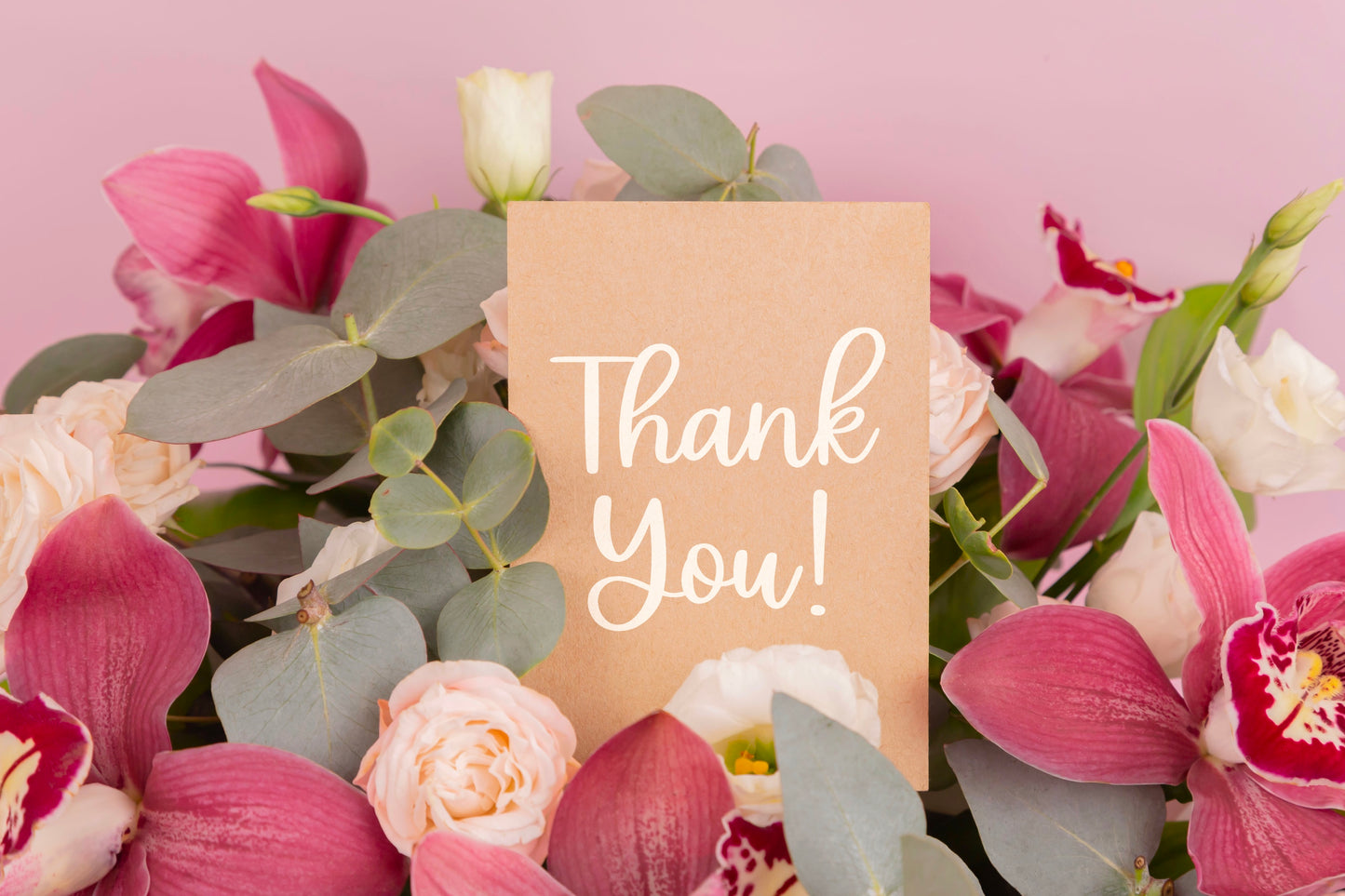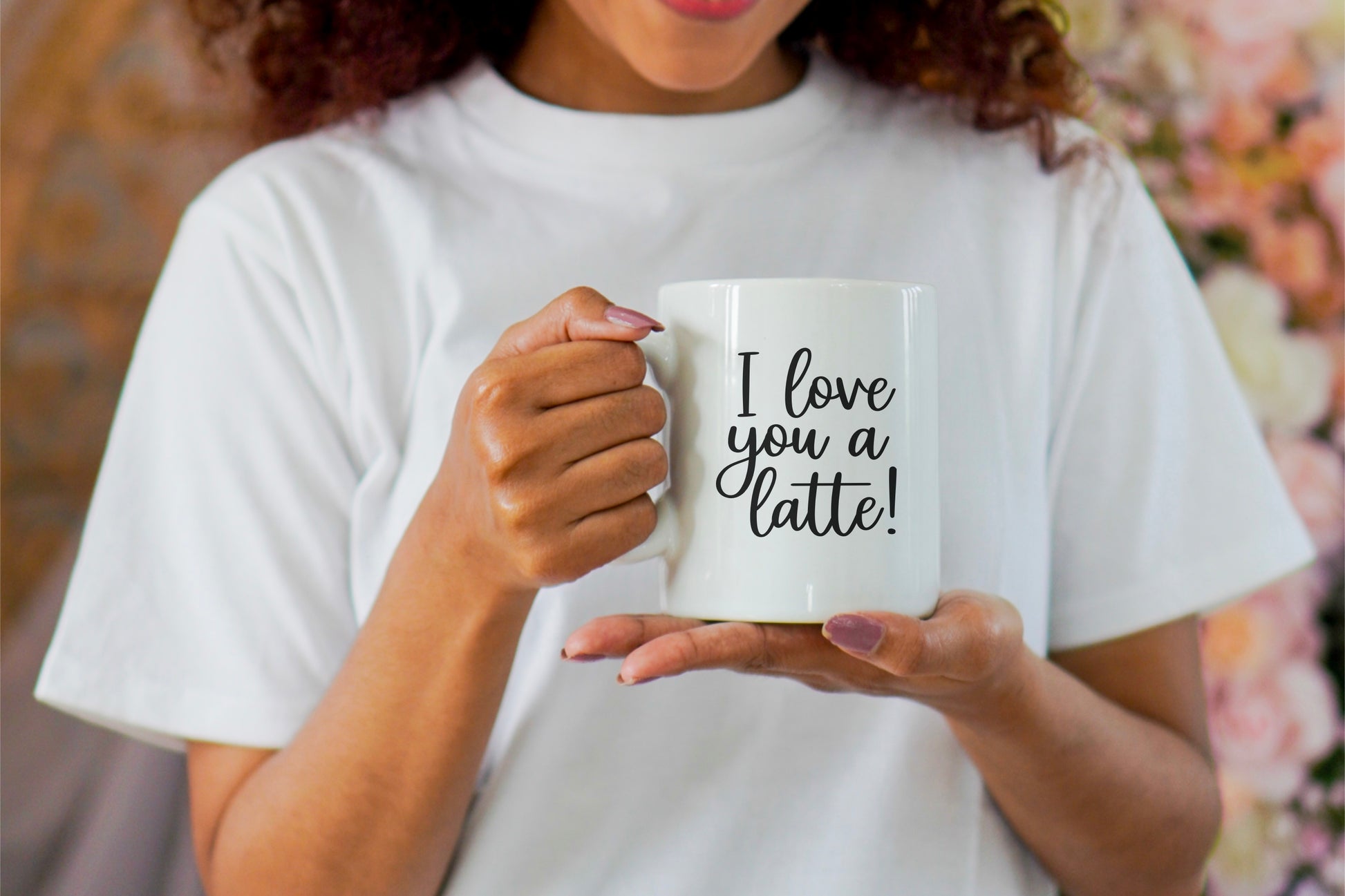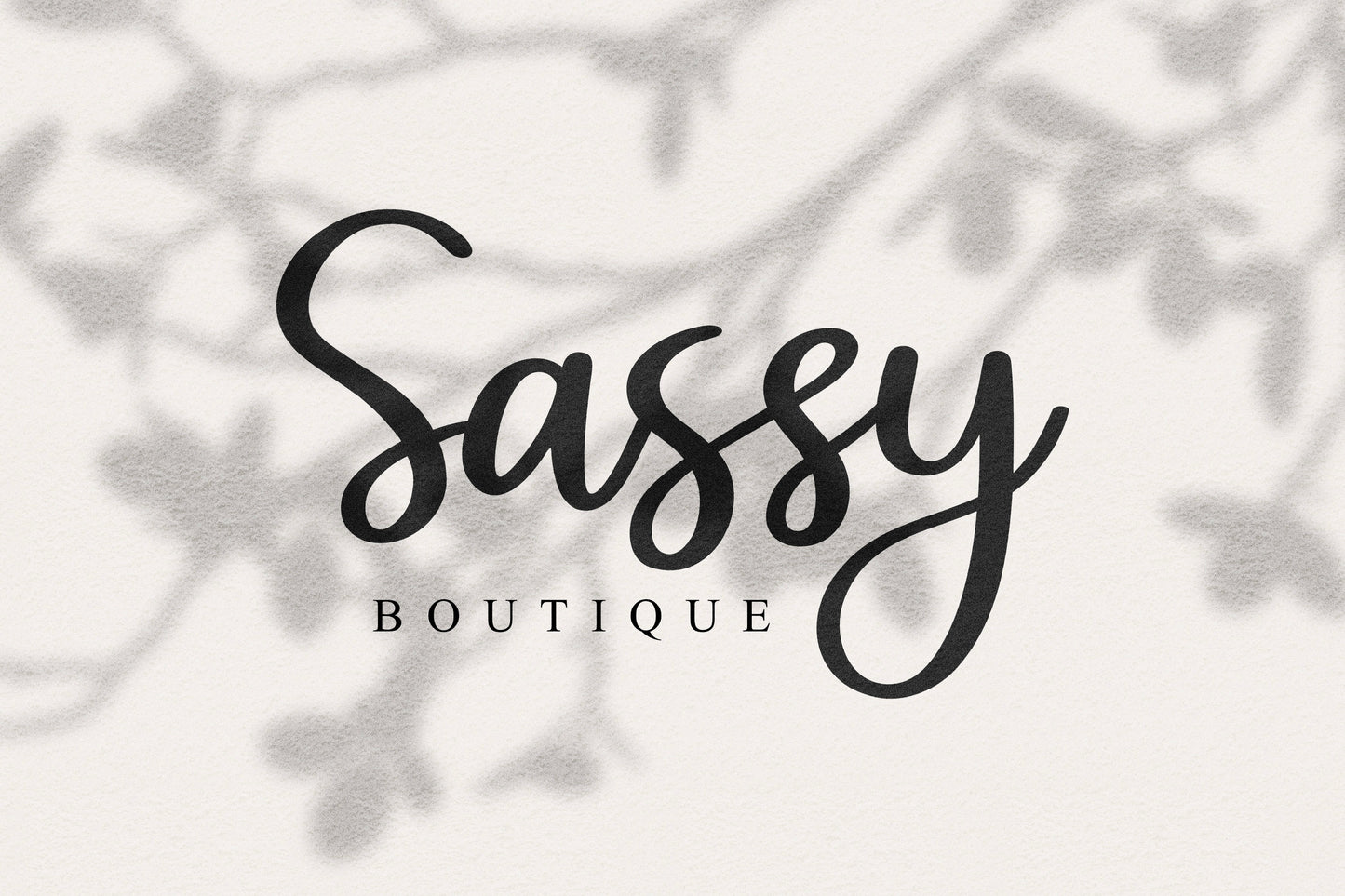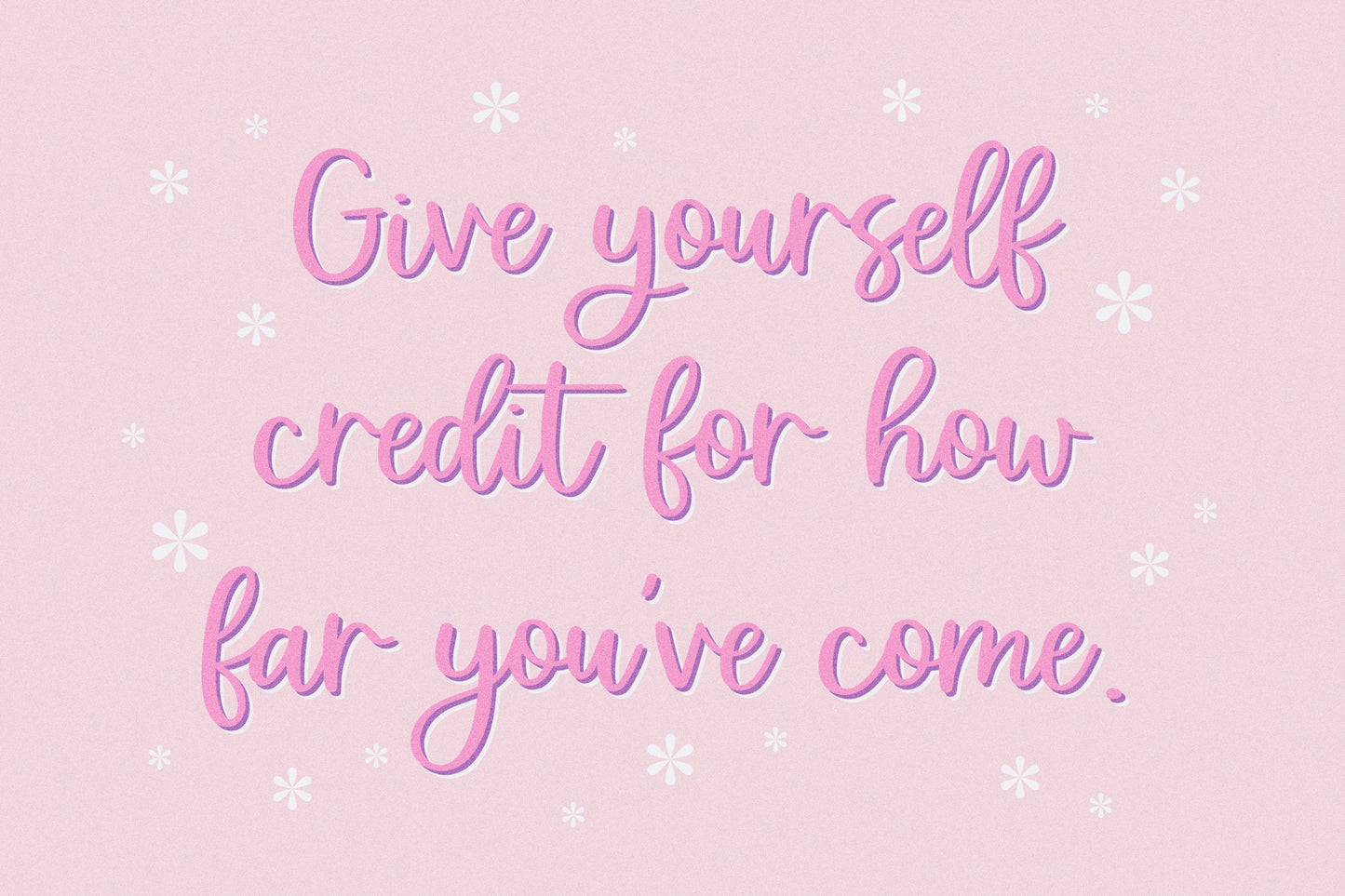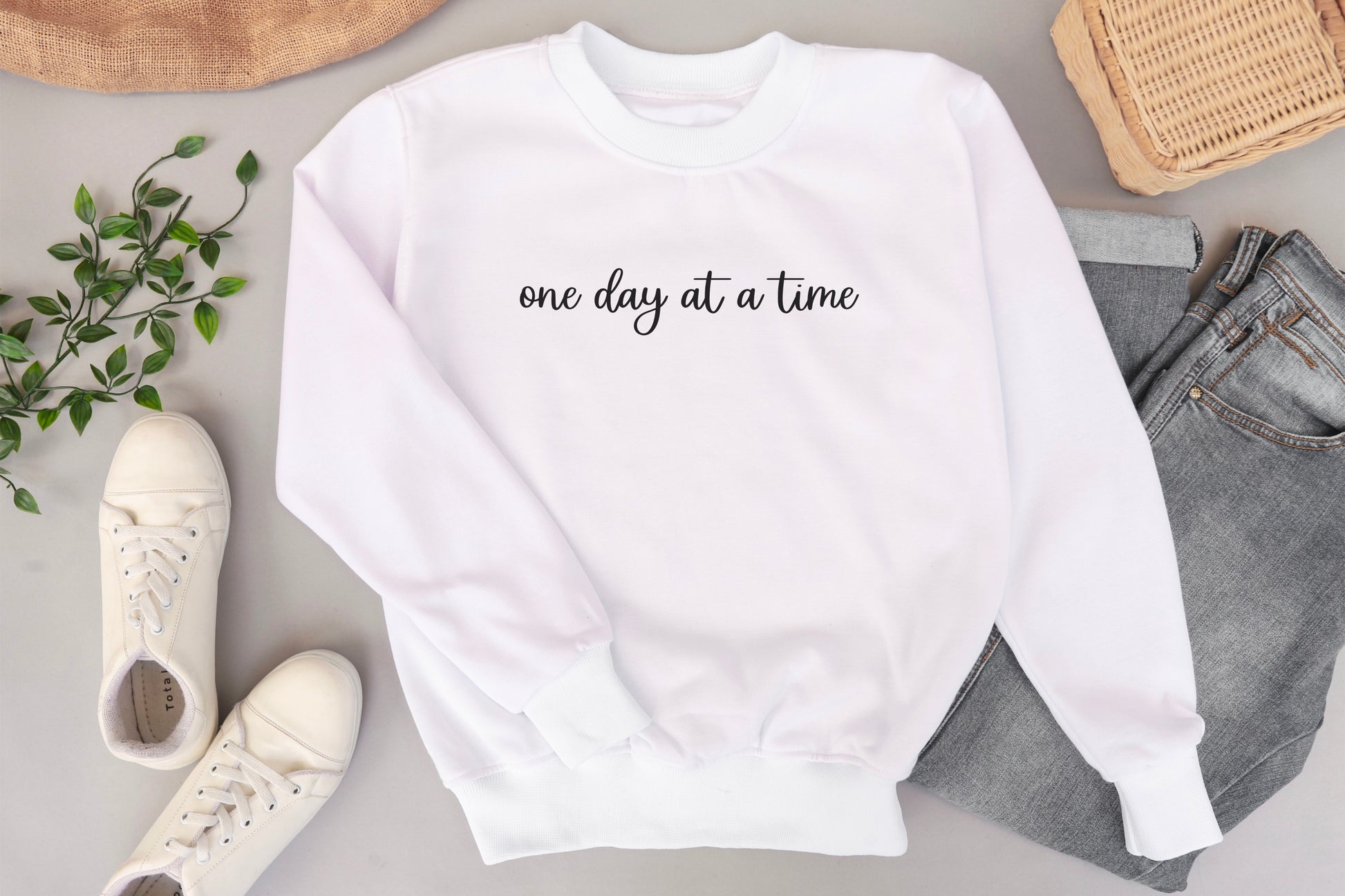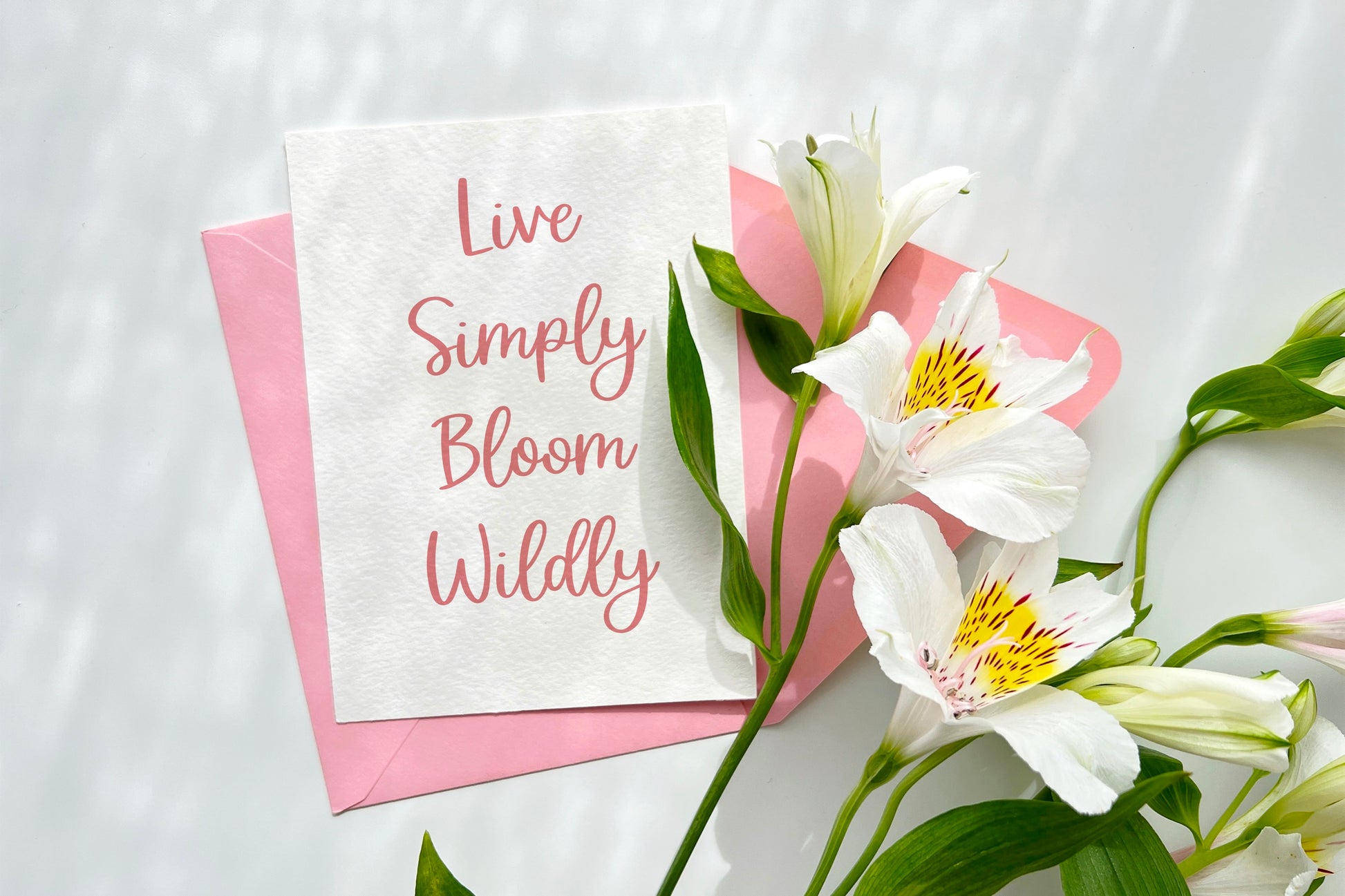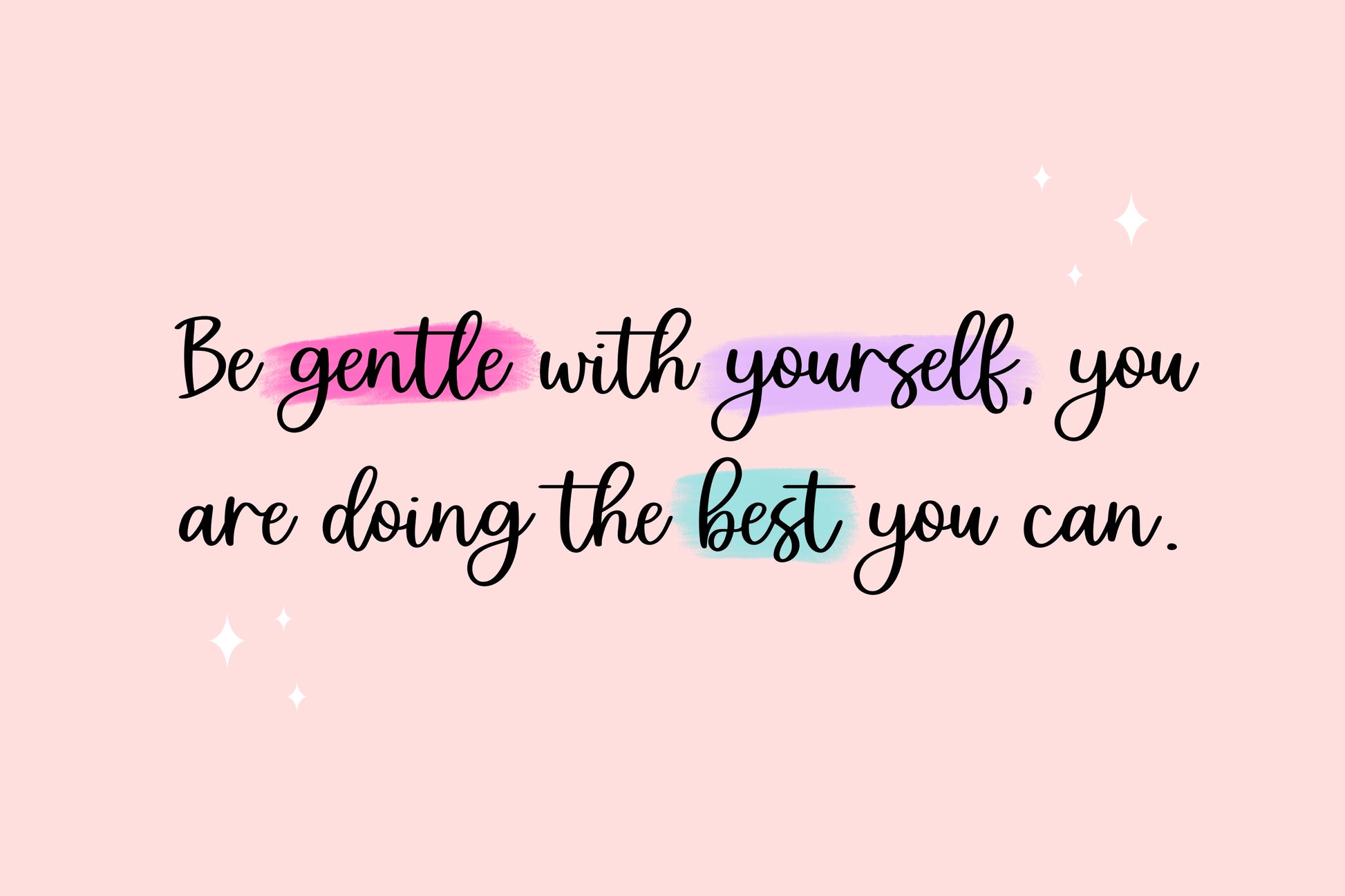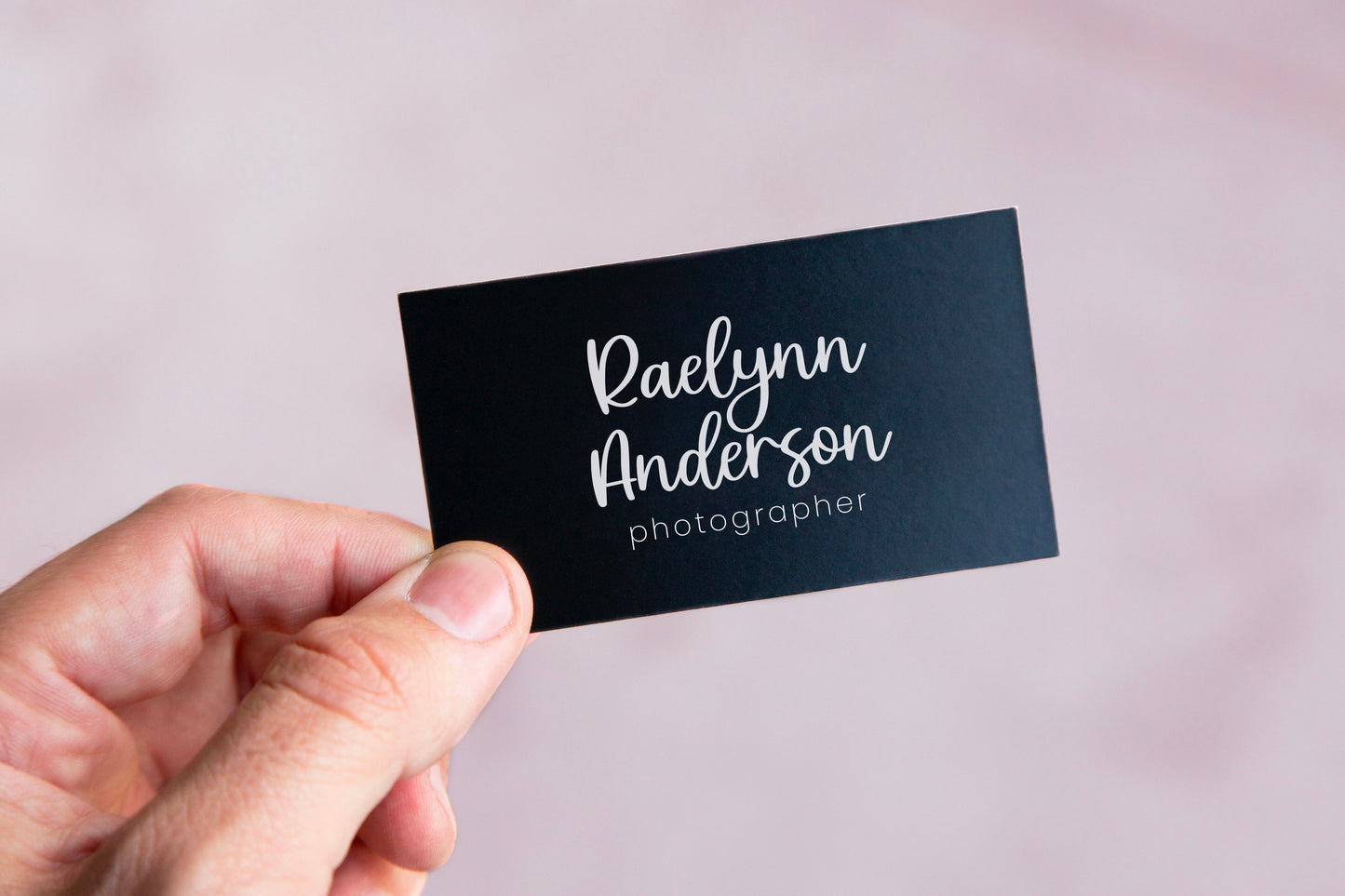
Marvelous Handwritten Script Font
This is my Marvelous handwritten/hand drawn font. This unique font is versatile and can be used for elegant occasions or casual designs. It will add a fun, handmade feel to any design! I truly enjoy using this one in planners and journals! It would also be great for stickers, posters, t-shirts, invitations, quote designs, and any other cute design that you can think of!